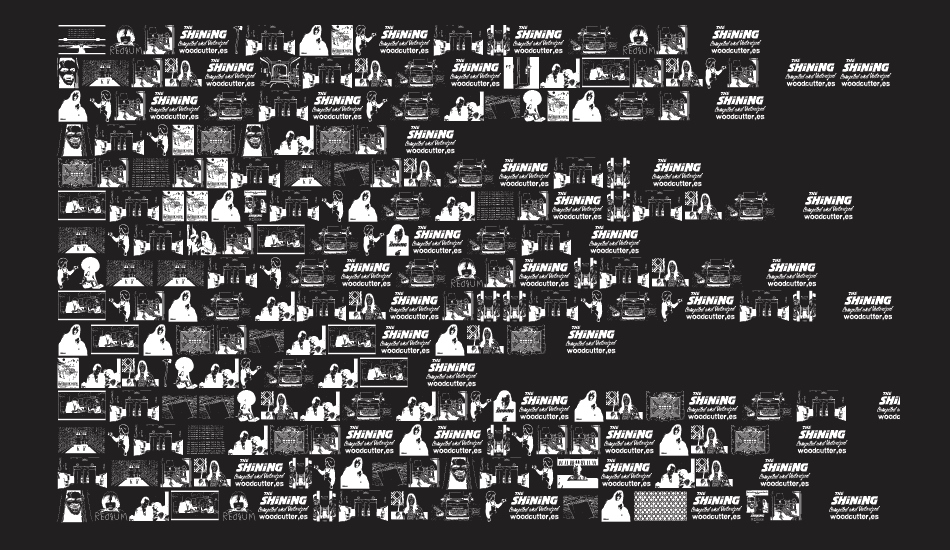
The Shining Font Free . Web create graphics with the shining font, a horror movie poster style inspired by shining nfi demo. Web download the shining font by pinisiart.
Web create graphics with the shining font, a horror movie poster style inspired by shining nfi demo. The shining font has been downloaded 226 times. Web download the shining font, a similar font to the one used in the horror film poster.
Web the shining is a 1977 horror novel by american author stephen king. Moreover, you can embed it to your website with @font. Web create graphics with the shining font, a horror movie poster style inspired by shining nfi demo. 22,302 downloads (1 yesterday) 100% free.
The Shining Font Free - The shining font has been downloaded 226 times. Web the shining is a psychological horror film from the usa which was released in 1980. Download the font for free and. Web the shining by woodcutter. Web the shining is a 1977 horror novel by american author stephen king.
The Shining Font Free - Moreover, you can embed it to your website with @font. Download the font for free and. Web download the shining font by pinisiart. The shining font has been downloaded 226 times. The shining font is a great modern typeface which was used for this film’s.
The Shining Font Free - Moreover, you can embed it to your website with @font. Web create graphics with the shining font, a horror movie poster style inspired by shining nfi demo. Web the shining font is a font inspired by the title of the horror film the shining. Web download the shining font, a similar font to the one used in the horror film.
The Shining Font Free - Web the shining is a psychological horror film from the usa which was released in 1980. It is king’s third published novel and first hardback bestseller; Web the shining is a 1977 horror novel by american author stephen king. Web the shining font is a font inspired by the title of the horror film the shining. Web download the shining.
The Shining Font Free - In dingbats > tv, movie. 22,302 downloads (1 yesterday) 100% free. Use the text generator to create graphics with the. Learn how to download and install it from fontsherlock, a site that offers thousands of. Web the shining font is a font inspired by the title of the horror film the shining.
The Shining Font Free - Web the shining by woodcutter. Learn how to download and install it from fontsherlock, a site that offers thousands of. Web the shining is a psychological horror film from the usa which was released in 1980. The shining font is a great modern typeface which was used for this film’s. Moreover, you can embed it to your website with @font.
The Shining Font Free - The shining font has been downloaded 226 times. Use the text generator to create graphics with the. Web the shining by woodcutter. The shining font is a great modern typeface which was used for this film’s. Learn how to download and install it from fontsherlock, a site that offers thousands of.
The Shining Font Free - Web download the shining font by pinisiart. Use the text generator to create graphics with the. Web the shining is a psychological horror film from the usa which was released in 1980. Learn how to download and install it from fontsherlock, a site that offers thousands of. Moreover, you can embed it to your website with @font.
The Shining Font Free - Web the shining is a psychological horror film from the usa which was released in 1980. Use the text generator to create graphics with the. Web download the shining font, a similar font to the one used in the horror film poster. In dingbats > tv, movie. Web download the shining font by pinisiart.
The Shining Font Free - Download the font for free and. Web create graphics with the shining font, a horror movie poster style inspired by shining nfi demo. Web download the shining font by pinisiart. Moreover, you can embed it to your website with @font. 22,302 downloads (1 yesterday) 100% free.
The Shining Font Free - In dingbats > tv, movie. Web the shining by woodcutter. The shining font is a great modern typeface which was used for this film’s. 22,302 downloads (1 yesterday) 100% free. Learn how to download and install it from fontsherlock, a site that offers thousands of.
The Shining Font Free - Learn how to download and install it from fontsherlock, a site that offers thousands of. The shining font is a great modern typeface which was used for this film’s. Web download the shining font, a similar font to the one used in the horror film poster. 22,302 downloads (1 yesterday) 100% free. Web create graphics with the shining font, a.
The Shining Font Free - Web the shining font is a font inspired by the title of the horror film the shining. The shining font is a great modern typeface which was used for this film’s. The shining font has been downloaded 226 times. Moreover, you can embed it to your website with @font. Web the shining is a psychological horror film from the usa.
The Shining Font Free - Moreover, you can embed it to your website with @font. The shining font is a great modern typeface which was used for this film’s. Web download the shining font by pinisiart. Web create graphics with the shining font, a horror movie poster style inspired by shining nfi demo. Web the shining font is a font inspired by the title of.